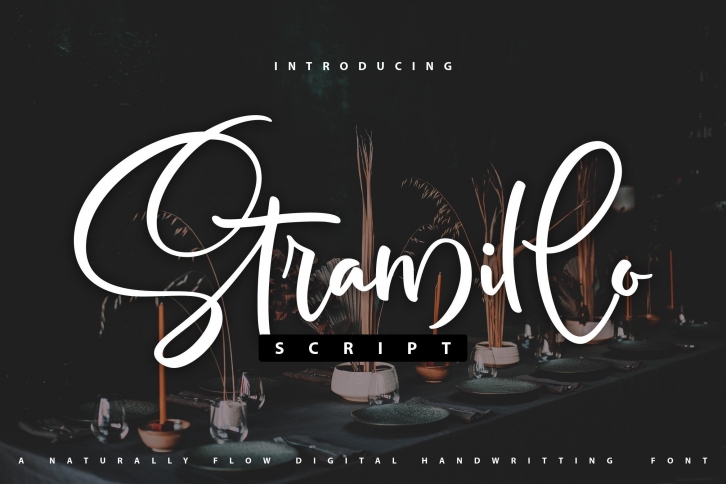
Stramillo is a beautiful script font with a calligraphy style. It looks so beautiful on invitations, greeting cards, branding materials, business cards, quotes, posters, and more!